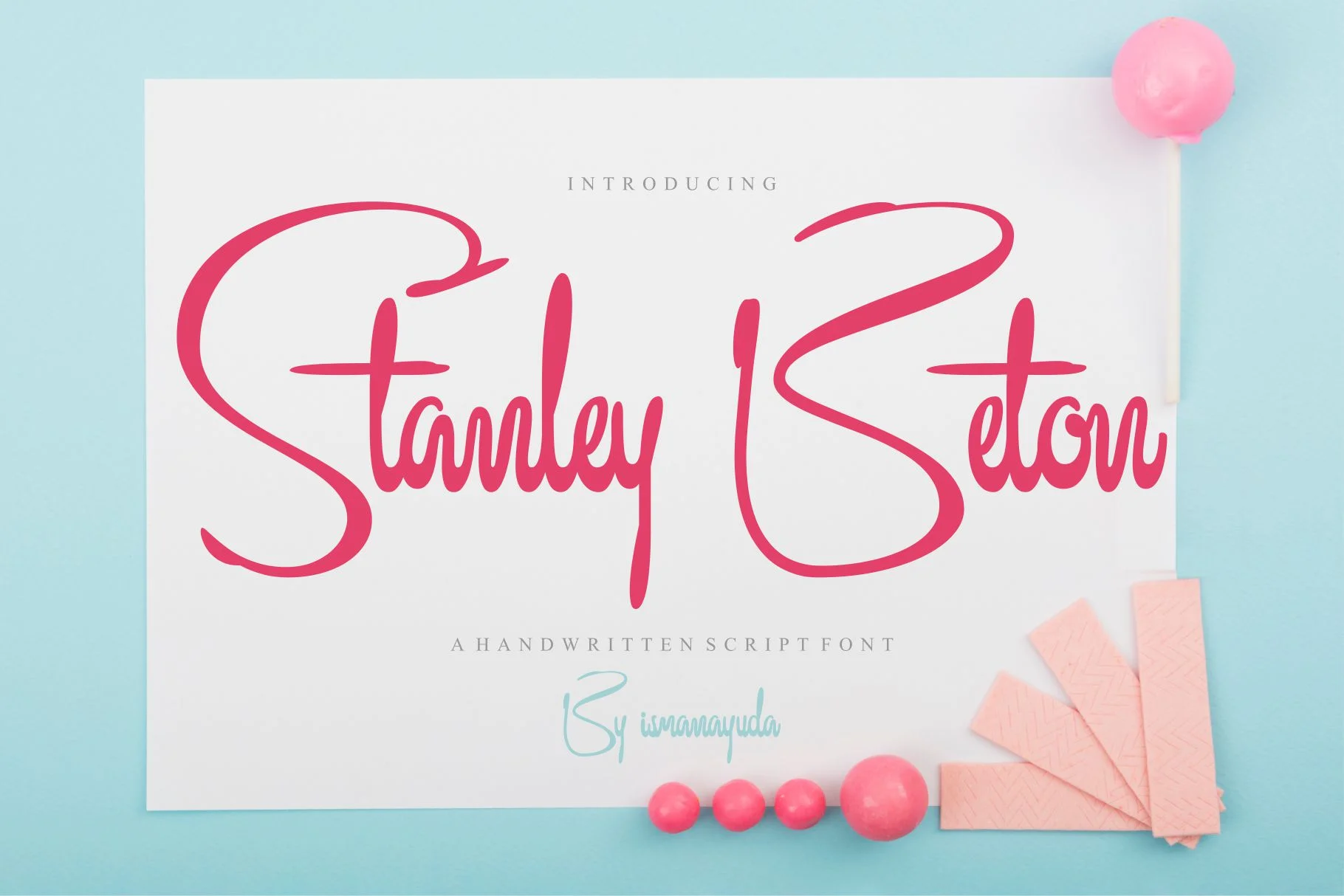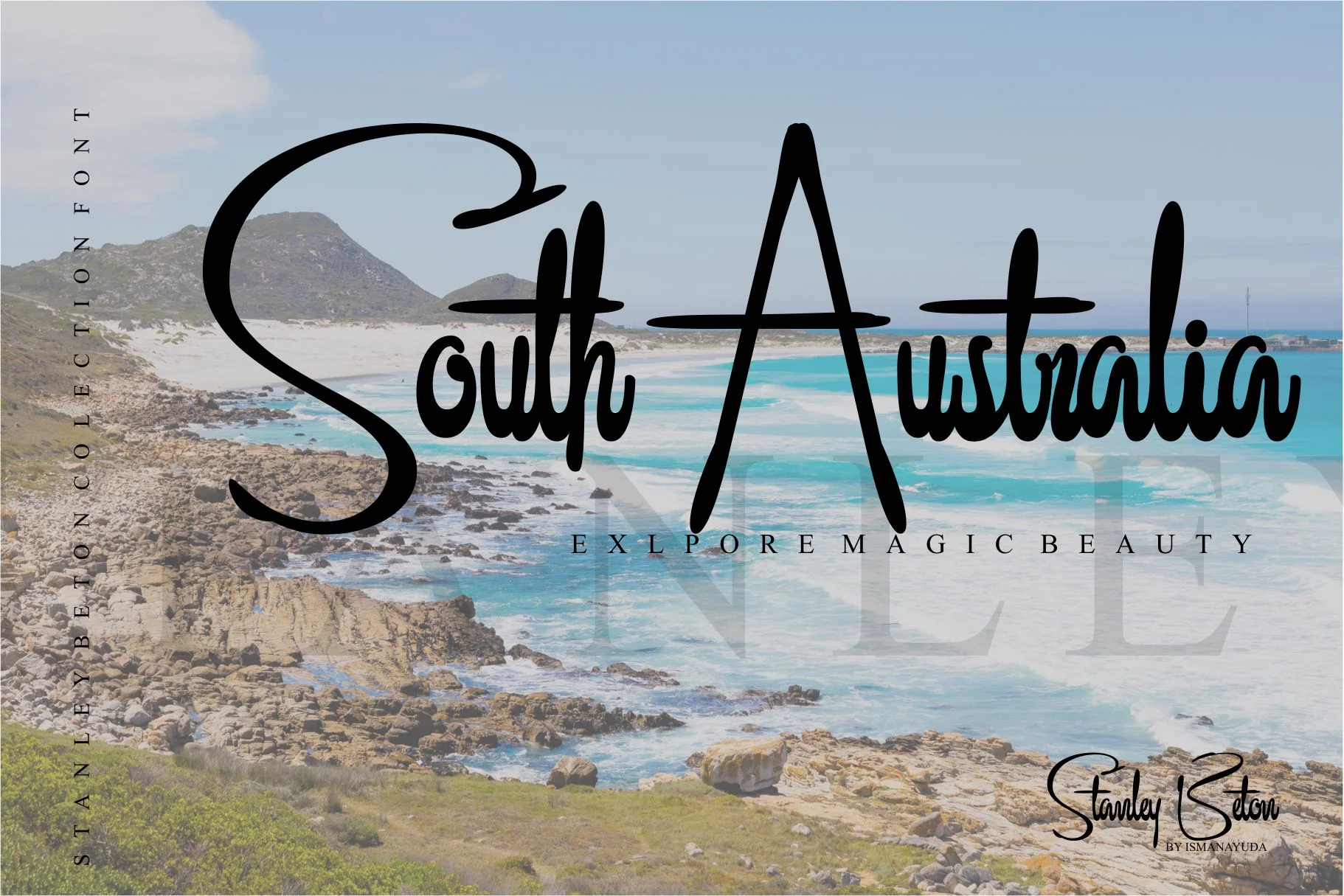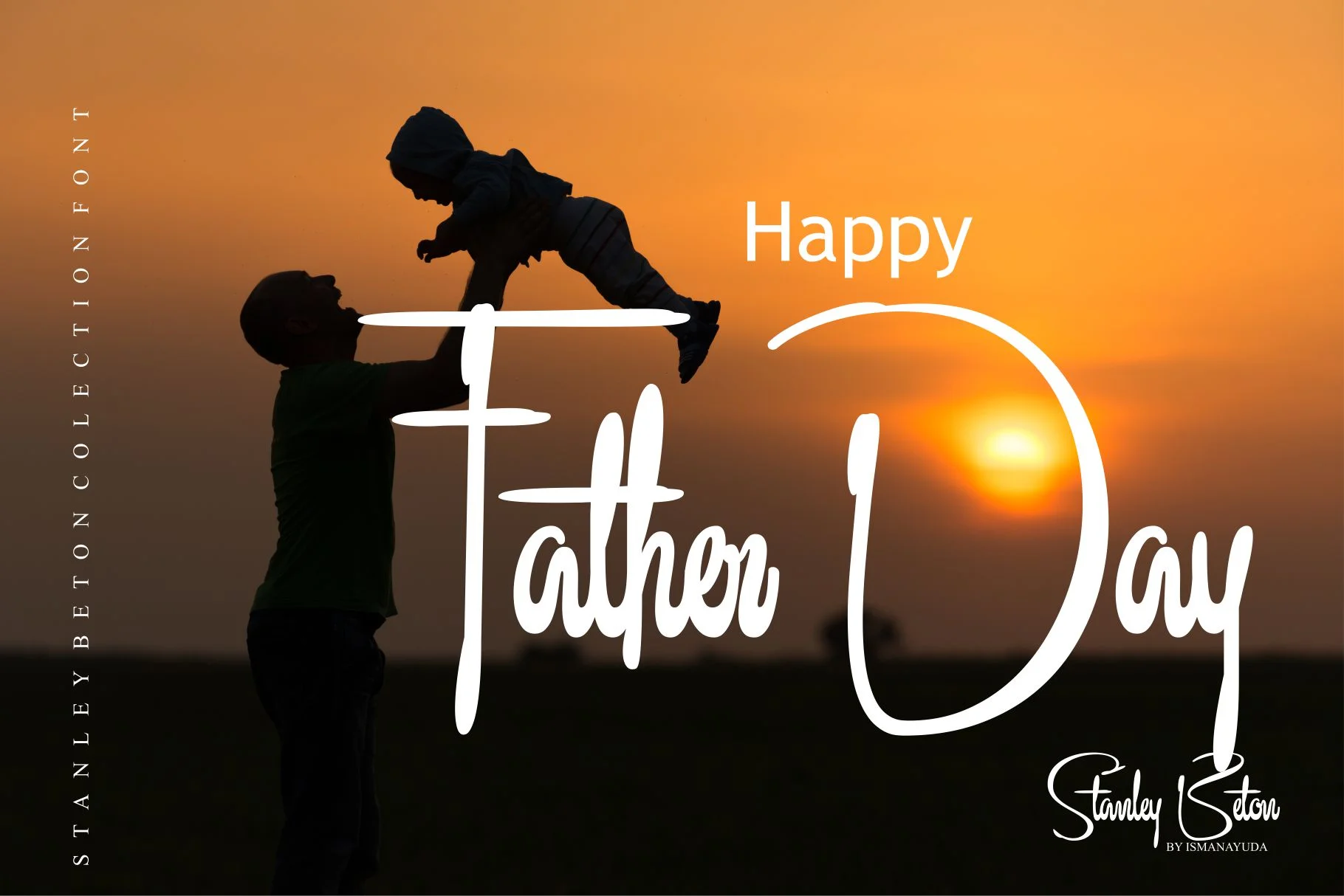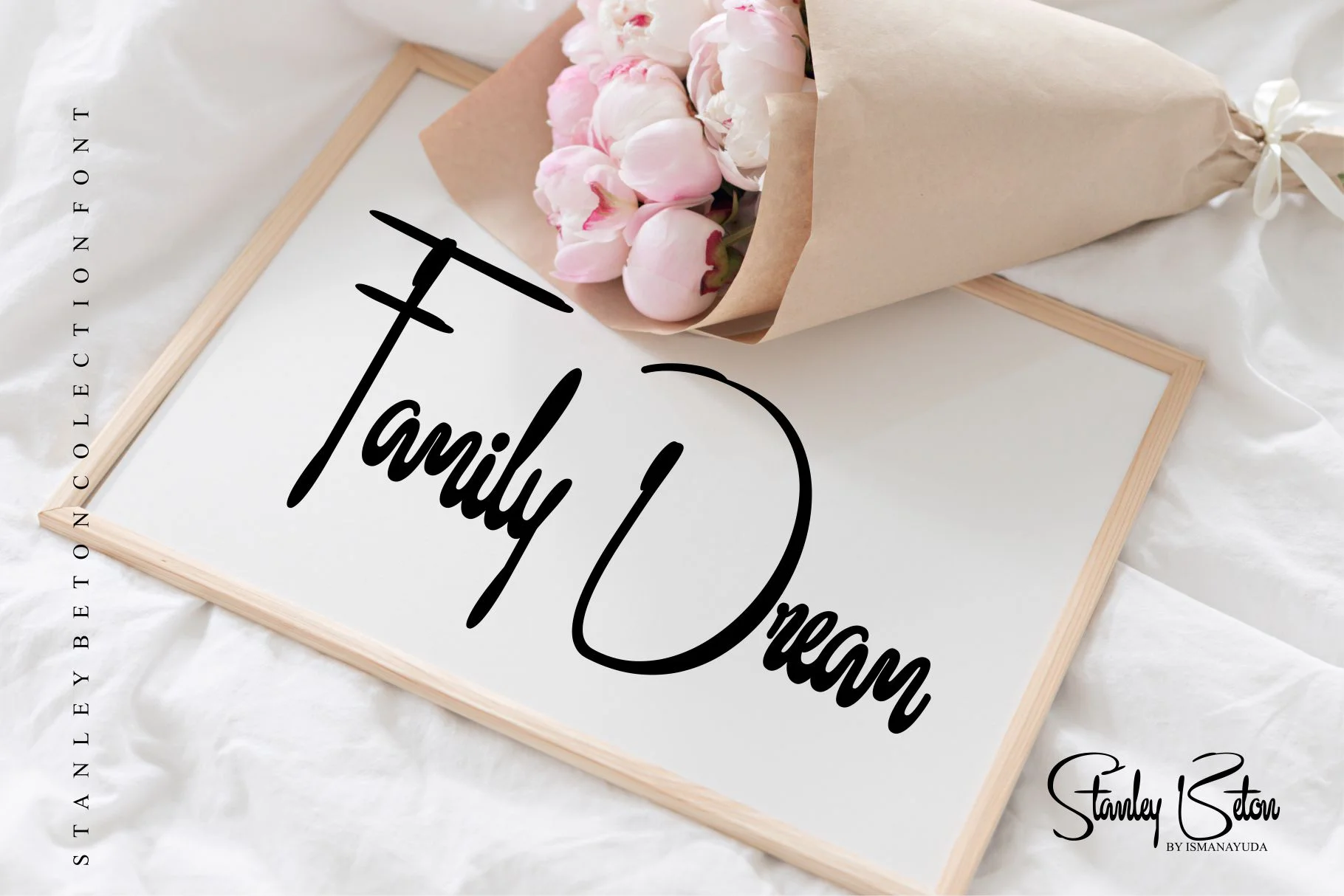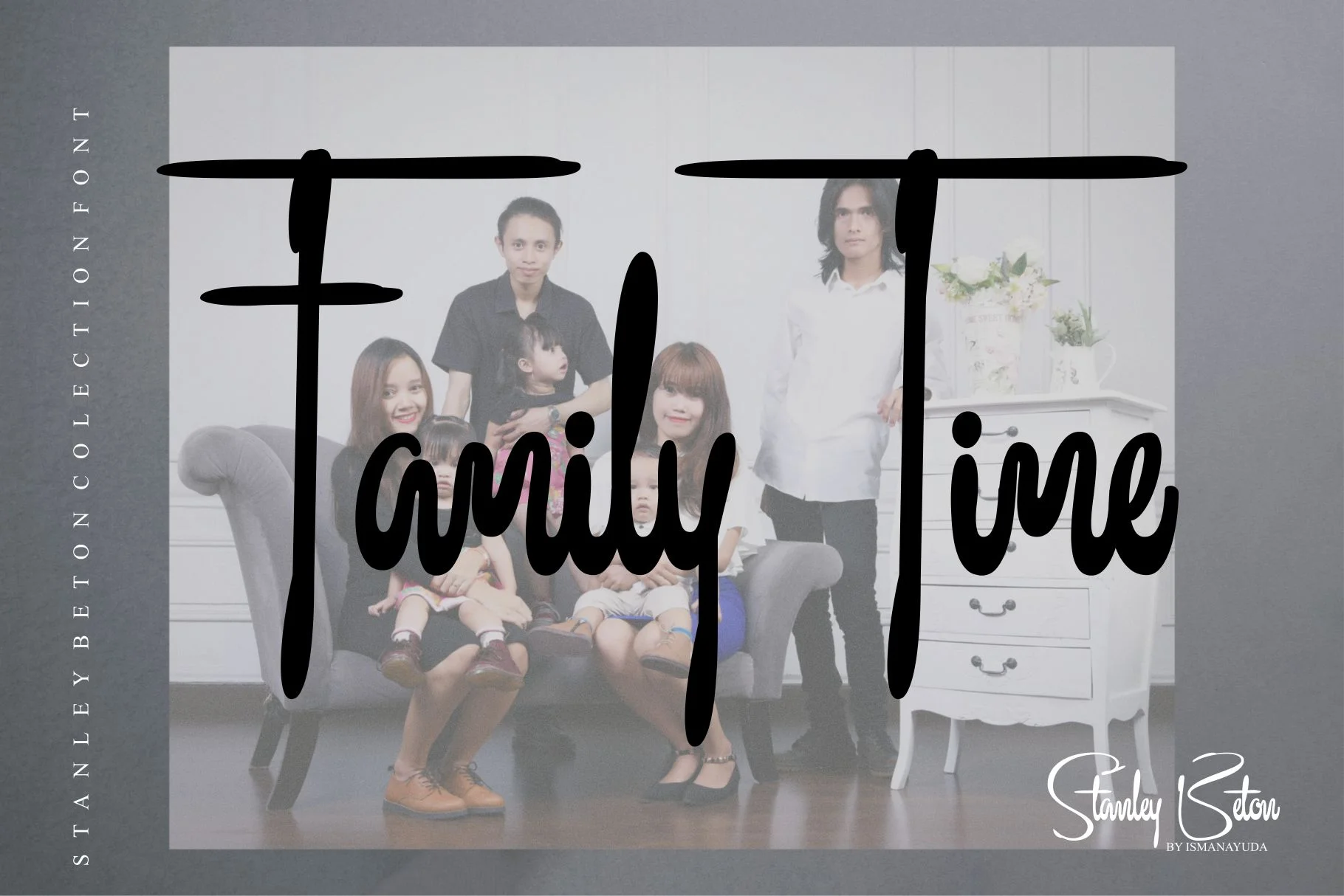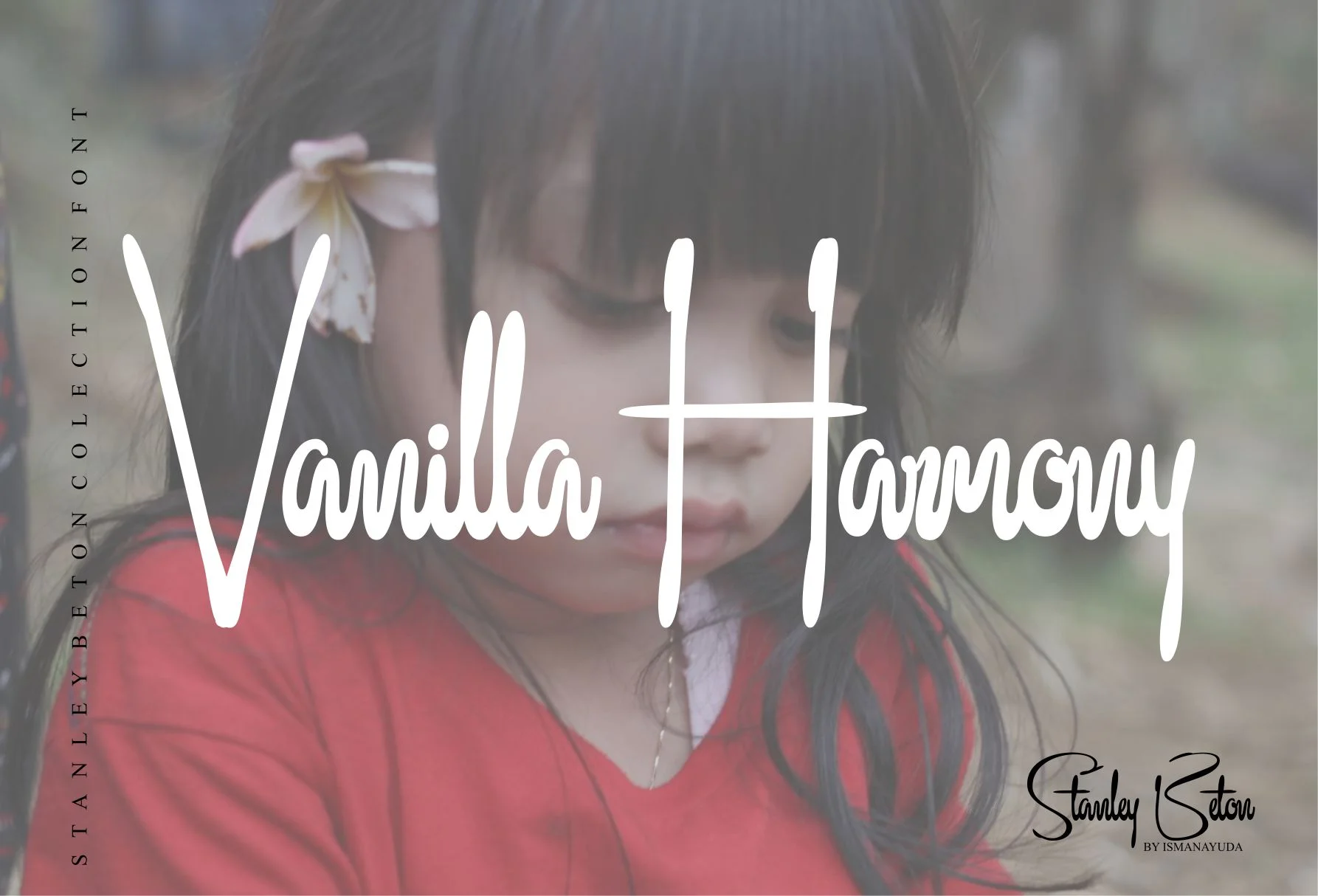
Stanley Beton
Stanley Beton is characterized by its fluid, organic letterforms that mimic the natural motion of hand-drawn penmanship. It features sweeping swashes and a modern, personalized style that balances casual charm with professional elegance. The font is specifically designed for high-impact visual projects that require a signature feel, making it ideal for wedding invitations, lifestyle branding, social media quotes, and specialized posters or mock-ups.